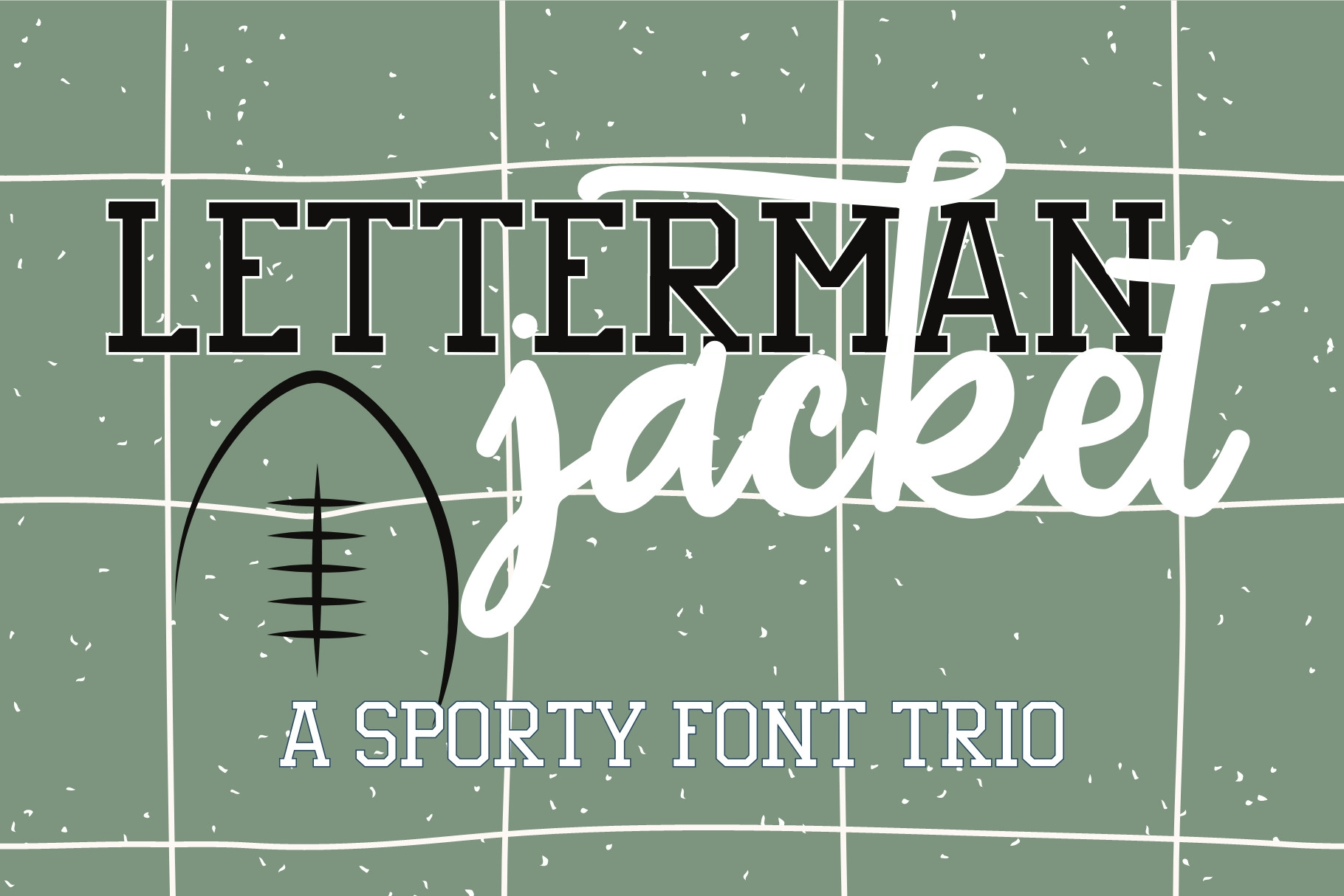
Letterman Jacket, Sports Font Trio
Letterman Jacket is a sports handwritten font trio, perfect for uniforms, invitations, t-shirts, stickers, crafts, and much more. Includes a serif font, a serif font outline, and a script font with flourishes. Use them separately or layer them for a fun effect. Use these cute handwriting fonts for cricut, procreate, silhouette, and more.